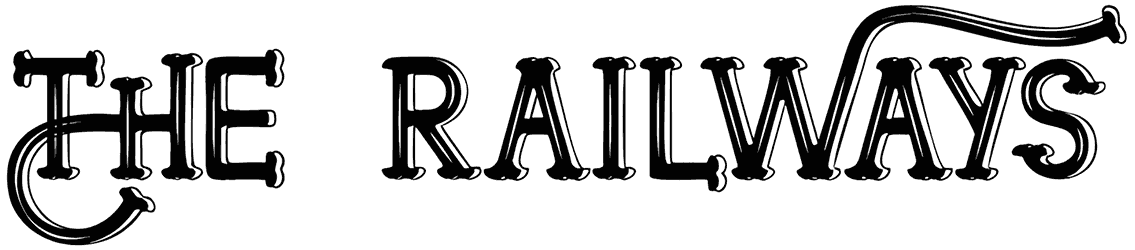
The Railways Font
The Railways is a well-designed font and seems memorable to the viewers. This fancy font has an elegant design and can be helpful in several situations.
For instance, you may use it for magazines, book covers, and commercial packaging, but it does not support numbers and symbols. This stylish retro font’s letters have a slim shadow, making them look 3D. Moreover, they have a classy style that looks shiny, so download this serif font now and impact your audience.